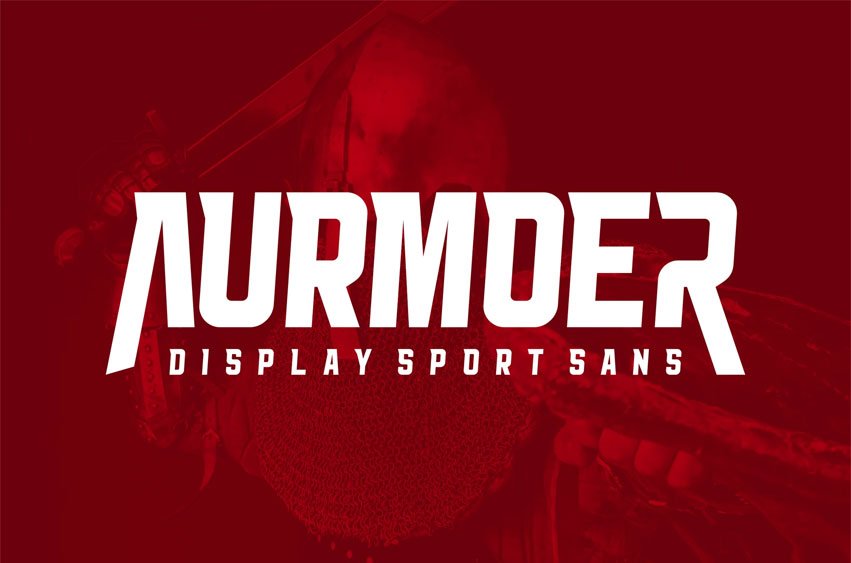
Aurmoer Font Display Sport Sans is a bold and authentic display font. The font is suitable for all branding projects such as logos, esports, etc.
It looks exceptional in a wide range of contexts.
- capital letters
- Tiny
- Alternate